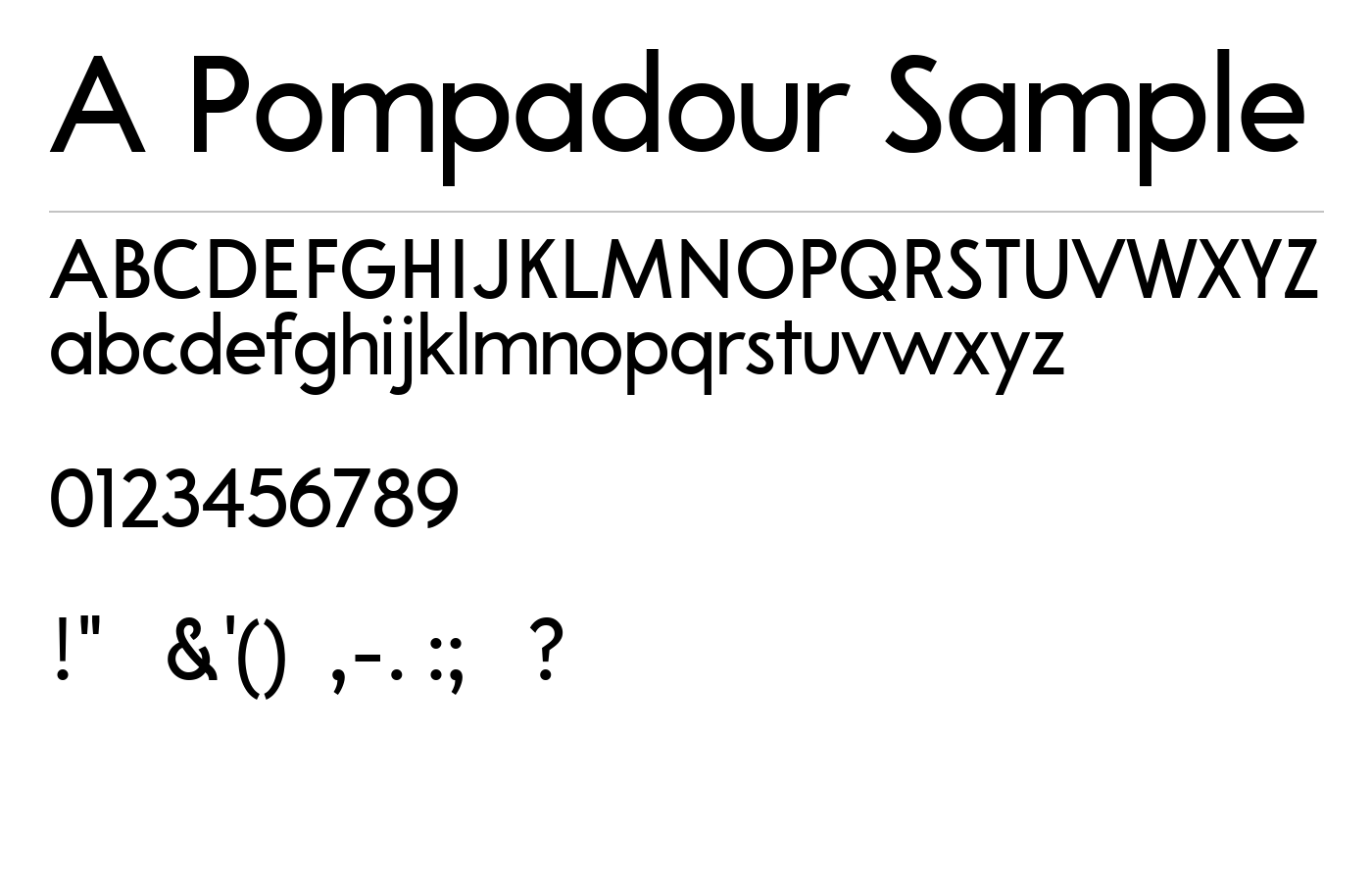
A Pompadour Sample is a clean and modern sans serif font characterized by its balanced weight and slightly condensed width, making it both elegant and highly readable. Its geometric shapes and consistent stroke contrast give it a contemporary feel, suitable for stylish headlines, branding, and editorial design where clarity and a refined look are desired. This font works well in contexts that require a professional yet approachable tone, such as fashion, tech, and lifestyle media.
A Pompadour Sample Font
About A Pompadour Sample Font
| Designer | Ana Parracho |